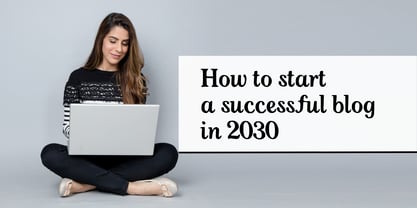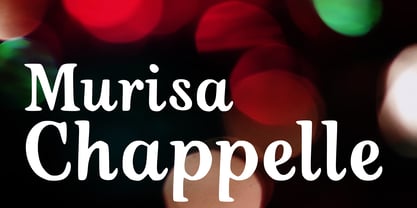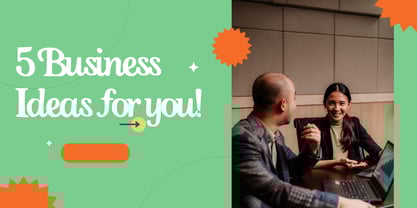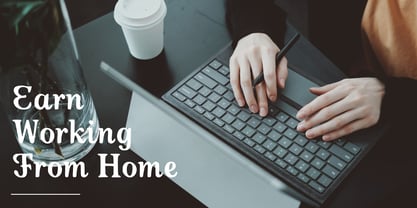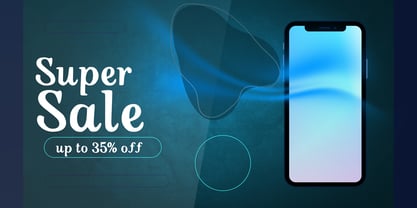
Murisa Chappelle
by Murisa Studio
The Murisa Chappelle Font Family was designed by Lili Sadili and published by Murisa Studio. Murisa Chappelle contains 2 styles and family package options.
✨ Murisa Chappelle — Where Elegance Meets Authority Step into a world of refined sophistication with Murisa Chappelle, a high-impact italic serif typeface crafted for visionaries, tastemakers, and brands that demand presence. Every curve whispers elegance, every stroke commands attention. 💎 Distinctive Features: Slanted with purpose, the italic forms evoke motion, grace, and confidence. Sharp serifs and balanced proportions create a timeless silhouette—perfect for luxury branding, editorial headlines, and statement packaging. Designed with multilingual finesse, including full support for Eastern European languages 🗺️—because global style deserves global reach. 🖋️ Whether you're designing for haute couture, premium publications, or elevated digital experiences, Murisa Chappelle delivers a typographic voice that’s bold, cultured, and unmistakably original. This is not just a font. It’s a signature. It’s a legacy. It’s Murisa Chappelle